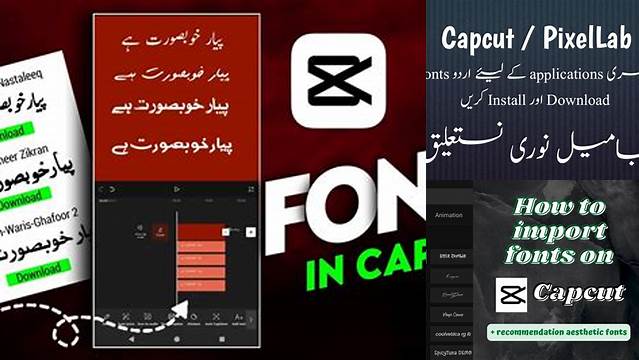
Best Urdu Fonts For CapCut: Free Downloads & Guide
Hey guys! Are you looking to add a touch of Urdu flair to your CapCut videos? You've come to the right place! Using the best Urdu fonts can truly elevate your video projects, making them more engaging and visually appealing to your audience. In this comprehensive guide, we'll dive deep into the world of Urdu fonts specifically tailored for CapCut, exploring why they're important, what to look for, and where to find them. So, buckle up and let's embark on this creative journey together!
Urdu fonts hold immense significance in video editing, especially when catering to an audience that understands and appreciates the language. The right font can convey the tone, emotion, and overall message of your video far more effectively than a generic typeface. Think about it: a playful script font might be perfect for a lighthearted video, while a more traditional and elegant font could enhance a formal or serious project. By choosing the best Urdu fonts, you're not just adding text; you're adding character and personality to your content. This is crucial for capturing and retaining viewer attention, especially in today's fast-paced digital landscape where content creators are constantly vying for eyeballs. Moreover, the clarity and readability of your chosen font are paramount. An aesthetically pleasing font that's difficult to decipher defeats the purpose. We'll explore various font styles and their suitability for different video types, ensuring that your message is not only beautiful but also easily understood. So, let’s delve deeper into the specifics of choosing and using Urdu fonts in CapCut to create videos that truly resonate with your audience.
Let's talk about why Urdu fonts are a game-changer in CapCut. Using the right Urdu font in your videos isn't just about aesthetics; it's about connecting with your audience on a deeper level. When you use a font that resonates with the language and culture, you're speaking directly to your viewers in a way that feels authentic and personal. Imagine watching a video with beautifully crafted Urdu text – it instantly adds a layer of richness and cultural significance that a generic font simply can't replicate. This is especially important for content creators targeting an Urdu-speaking audience, as it shows respect for their language and heritage.
But it's not just about cultural relevance. The best Urdu fonts can also significantly enhance the overall viewing experience. A well-chosen font makes your text more readable and engaging, ensuring that your message is conveyed clearly and effectively. Think about it: a stylish and legible font can capture attention and hold it, while a poorly chosen font can be distracting and even make your video look unprofessional. Different fonts evoke different emotions and moods, so selecting the right one is crucial for setting the tone of your video. A bold and modern font might be perfect for a high-energy vlog, while an elegant and traditional font could be ideal for a documentary or educational video. The key is to match the font to the content and the overall message you're trying to convey. By carefully considering the impact of Urdu fonts, you can transform your CapCut videos from ordinary to extraordinary, creating content that truly connects with your audience and leaves a lasting impression.
So, what makes the best Urdu fonts stand out? It's not just about looking pretty; there are several key features to consider when choosing the right font for your CapCut videos. Readability is paramount. A beautiful font is useless if your audience can't easily read it. Look for fonts with clear letterforms and sufficient spacing between characters. This is especially important for on-screen text, where readability can be affected by factors like screen resolution and viewing distance. Style, of course, matters too. The best Urdu fonts come in a variety of styles, from traditional and calligraphic to modern and minimalist. Think about the tone and message of your video and choose a font that complements it. A formal video might benefit from a classic Naskh or Nastaliq font, while a more casual video could use a contemporary and playful font.
Versatility is another crucial factor. You want a font that looks good in a variety of contexts, whether it's a title, subtitle, or body text. Some fonts are specifically designed for headlines and may not be suitable for smaller text sizes, so it's essential to test how your chosen font looks in different situations. Support for Urdu characters is a given, but make sure the font also includes the necessary ligatures and diacritics for accurate representation of the language. A font that doesn't properly render Urdu script can lead to misinterpretations and a less professional appearance. Finally, consider licensing. Many high-quality Urdu fonts are available for free, but some may require a commercial license if you plan to use them in your videos for business purposes. Always check the licensing terms before using a font to avoid any potential legal issues. By keeping these key features in mind, you can confidently choose the best Urdu fonts for your CapCut projects and create visually stunning and impactful videos.
Alright, let's get to the good stuff! We've compiled a list of some of the top Urdu fonts that work beautifully in CapCut. These fonts have been chosen for their readability, style, and overall versatility, ensuring that you have a wide range of options to suit your video editing needs.
1. Jameel Noori Nastaleeq: This is a classic and widely respected Nastaliq font known for its elegance and readability. It's perfect for formal videos, documentaries, and projects that require a touch of sophistication. The flowing script of Jameel Noori Nastaleeq adds a traditional feel, making it ideal for content that honors Urdu literature and culture. Its intricate design, however, means it’s best used for larger text sizes and headings to maintain clarity. This font is a staple in the Urdu-speaking world and is highly recommended for anyone seeking an authentic and timeless look.
2. Alvi Nastaleeq: Another fantastic Nastaleeq option, Alvi Nastaleeq, offers a slightly more modern take on the traditional script. It's still highly readable but has a cleaner, more contemporary feel. This font is versatile enough to be used in a variety of video styles, from educational content to vlogs. Alvi Nastaleeq strikes a balance between classic and modern, making it a reliable choice for creators who want a font that is both elegant and accessible. Its well-defined characters ensure readability even at smaller sizes, making it suitable for subtitles and body text as well as headlines.
3. Nafees Nastaleeq: Nafees Nastaleeq is celebrated for its crispness and clarity. It's an excellent choice for videos where readability is paramount, such as tutorials or explainer videos. The clean lines and balanced letterforms make it easy on the eyes, ensuring that your audience can focus on the content rather than struggling to decipher the text. Nafees Nastaleeq is also a good option for projects that require a modern touch while maintaining the traditional Urdu script. Its simplicity makes it versatile and suitable for a wide range of applications within CapCut.
4. Urdu Naskh Asia Type: For those seeking a Naskh-style font, Urdu Naskh Asia Type is a solid choice. Naskh fonts are known for their simplicity and clarity, making them ideal for body text and situations where readability is key. This font is particularly well-suited for educational videos, news reports, and any content that requires a straightforward and professional look. Urdu Naskh Asia Type provides a clean and legible appearance, ensuring that your message is communicated effectively without any distractions. Its straightforward design makes it a practical choice for creators who prioritize clarity and ease of reading.
5. Lateef: If you're looking for a more contemporary and casual Urdu font, Lateef is a great option. It has a friendly and approachable feel, making it perfect for vlogs, social media content, and videos aimed at a younger audience. Lateef's rounded letterforms and slightly playful design add a touch of personality to your videos, helping them stand out from the crowd. This font works particularly well in informal settings, lending a relaxed and engaging vibe to your content. Its modern aesthetic makes it a good choice for creators who want to blend traditional script with contemporary design elements.
These are just a few of the many amazing Urdu fonts available. We encourage you to explore and experiment to find the perfect font that matches your style and the message you want to convey.
Now that you know some of the best Urdu fonts, let's talk about where you can download them. There are several excellent resources available online, both free and paid, where you can find a wide variety of Urdu fonts to suit your needs.
1. Google Fonts: Google Fonts is a fantastic resource for free, open-source fonts, and it includes a growing selection of Urdu fonts. The fonts available on Google Fonts are generally high-quality and can be used for both personal and commercial projects. The ease of access and the fact that they are free make Google Fonts a great starting point for anyone looking to add Urdu typography to their videos. The fonts are also optimized for web use, which means they look great on screens and are easy to integrate into various design tools, including CapCut.
2. UrduWeb: UrduWeb is a dedicated website that offers a range of Urdu fonts, many of which are free to download. It's a great place to find fonts specifically designed for the Urdu language, ensuring that you have access to the necessary characters and ligatures. UrduWeb is a valuable resource for creators who need fonts tailored to the nuances of Urdu script. The site often features fonts that are not available elsewhere, providing a unique collection for your video projects.
3. Font Library: Font Library is another excellent online resource that aggregates free fonts from various sources. You can find a selection of Urdu fonts here, along with fonts in many other languages. The advantage of Font Library is its wide range of options and the ability to filter by different styles and languages. This makes it easier to find a font that matches your specific creative vision. The platform’s user-friendly interface allows you to preview fonts and download them quickly, making it a convenient option for busy video editors.
4. Creative Market: For those willing to invest in premium fonts, Creative Market is a fantastic option. It offers a vast selection of high-quality fonts, including many beautiful Urdu typefaces. Paid fonts often come with additional features and support, making them a worthwhile investment for professional projects. Creative Market’s fonts are designed by talented typographers and are often more refined and unique than free options. The licensing is also typically straightforward, making it a reliable choice for commercial use.
5. MyFonts: MyFonts is another popular marketplace for premium fonts. It has a wide variety of Urdu fonts available, ranging from traditional to modern styles. MyFonts is known for its extensive selection and high standards of quality, ensuring that you find a font that meets your professional needs. The site’s advanced search features allow you to filter fonts by various criteria, including language, style, and price, making it easier to narrow down your options. MyFonts also provides detailed font previews, allowing you to see how the font looks in different contexts before you make a purchase.
When downloading fonts, always make sure to check the licensing terms to ensure that you are using them legally. Most free fonts have licenses that allow for personal and commercial use, but it's always best to double-check. By using these resources, you'll be well-equipped to find the best Urdu fonts for your CapCut videos.
Okay, you've downloaded your favorite Urdu fonts – awesome! Now, let's get them into CapCut so you can start using them in your videos. The process is pretty straightforward, but it can vary slightly depending on whether you're using CapCut on your mobile device or on your computer.
On Mobile (Android & iOS):
- Locate the Downloaded Font: First, find the folder where your downloaded font files are stored. These files usually come in a
.ttfor.otfformat. This is often in your device's "Downloads" folder or a specific folder you've designated for downloads. - Copy or Move the Font File: Once you've found the font file, you'll need to copy or move it to the CapCut fonts folder. This folder is typically located in your device's internal storage under
Android > data > com.lemon.lvoverseas > files > CapCut > user_data > custom_fonts. Note that this path might slightly differ based on your Android version or device, but the general structure remains the same. - If the Folder Doesn't Exist: If you don't see the
custom_fontsfolder, don't worry! You can simply create it. Just navigate to theuser_datafolder and create a new folder namedcustom_fonts. This will allow CapCut to recognize the new fonts you add. - Open CapCut and Add Text: Now, open CapCut and start a new project or edit an existing one. When you add text to your video, you'll see a "Font" option. Tap on it to open the font selection menu.
- Find Your Font: Scroll through the font list, and you should see your newly added Urdu font listed under the "Custom" or “My Fonts” section. If it doesn't appear immediately, try restarting the CapCut app. This often helps the app refresh its font list and recognize the new additions.
- Use Your Font: Once you find your font, tap on it to apply it to your text. You can then adjust the size, color, and other properties of the text to match your video's style.
On Desktop (PC & Mac):
- Locate the Downloaded Font: As with mobile, the first step is to find the downloaded font files (
.ttfor.otf). These are usually in your computer’s “Downloads” folder or a specific folder where you save downloads. - Install the Font on Your System: To use the font in CapCut (or any other desktop application), you need to install it on your operating system. On Windows, you can right-click the font file and select “Install.” On macOS, double-click the font file, and it will open in Font Book, where you can click “Install Font” at the bottom of the window. This step adds the font to your system’s font library, making it available to all applications.
- Open CapCut and Add Text: Launch CapCut on your desktop and open the project you're working on. Add a text layer to your video by selecting the text tool.
- Select Your Font: In the text editing panel, you’ll find a font selection dropdown menu. Click on it, and you should see your newly installed Urdu font listed among the other fonts. If it doesn’t appear immediately, try restarting CapCut. This helps the app refresh its font list and recognize the new font.
- Use Your Font: Once you’ve found your font, select it to apply it to your text. You can then adjust the font size, color, and other properties to fit your video’s design.
By following these steps, you can easily add custom Urdu fonts to CapCut and enhance your videos with beautiful typography. Remember to experiment with different fonts to find the perfect match for your content!
Adding Urdu fonts to CapCut is just the first step. To truly make your videos shine, you need to use these fonts effectively. Here are some tips to help you create stunning visuals with Urdu typography.
1. Readability is Key: This can't be stressed enough! No matter how beautiful a font is, if your audience can't read it easily, it's not doing its job. Choose fonts with clear letterforms and avoid overly decorative or complex styles, especially for smaller text sizes. Ensure that the font is legible on different screen sizes and resolutions. Consider the background of your video and select a font color that provides enough contrast for easy reading. For instance, white text on a dark background or vice versa usually works well. Also, be mindful of the spacing between letters and lines. Adjust the kerning and leading in CapCut to optimize readability, especially if you are using long sentences or paragraphs. Test your font choices on different devices to ensure that they remain readable across various platforms.
2. Match the Font to Your Video's Tone: The font you choose should complement the overall mood and message of your video. A playful, handwritten font might be perfect for a casual vlog, but it wouldn't be suitable for a formal documentary. Conversely, an elegant, traditional font could add sophistication to a serious project but might feel out of place in a lighthearted video. Consider the emotional tone you want to convey and select a font that aligns with it. For example, if your video is about a historical event, a classic Nastaliq font might be appropriate, while a modern and bold font could work well for a tech-related video. Pay attention to the font’s personality and how it resonates with your video’s narrative.
3. Use Font Hierarchy: Just like in any design project, using a clear font hierarchy can make your videos more visually appealing and easier to follow. Use different fonts for headings, subheadings, and body text to create a visual structure that guides the viewer's eye. For example, you might use a bold and eye-catching font for the title and a more readable font for the main content. Consistent font usage throughout your video helps to maintain a professional and cohesive look. Limit the number of fonts you use in a single project to avoid visual clutter. Typically, two to three fonts are sufficient to create a balanced and engaging design. Experiment with font sizes, weights, and styles within the same font family to create visual interest without introducing too many different fonts.
4. Consider Cultural Context: When using Urdu fonts, it's essential to consider the cultural context. Different fonts have different cultural associations, and choosing the right font can help you connect with your audience on a deeper level. Traditional Urdu fonts, like Nastaliq, are often associated with literature, poetry, and historical texts. Using these fonts can evoke a sense of tradition and heritage. Modern Urdu fonts, on the other hand, can convey a more contemporary and progressive feel. Think about your target audience and the message you want to send. If you’re creating content for a specific cultural group, ensure that your font choice resonates with their cultural values and preferences. This shows respect for the audience and enhances the overall impact of your video.
5. Test and Iterate: Don't be afraid to experiment with different fonts and styles. The best way to find what works is to try things out and see what looks good. Test your font choices on different devices and screen sizes to ensure that they look consistent across platforms. Get feedback from others and be willing to make adjustments based on their input. Video editing is an iterative process, and font selection is no exception. Try different combinations of fonts, colors, and sizes to find the perfect balance for your video. Pay attention to how the fonts look in motion and adjust their timing and placement to create a visually dynamic effect. By continuously testing and refining your font choices, you’ll create videos that are both beautiful and effective.
By keeping these tips in mind, you can make the most of Urdu fonts in CapCut and create videos that truly stand out!
So there you have it, guys! A comprehensive guide to using the best Urdu fonts in CapCut. We've covered why Urdu fonts matter, what to look for in a good font, where to download them, how to add them to CapCut, and tips for using them effectively. By following these guidelines, you'll be well on your way to creating stunning videos that resonate with your audience. Remember, the right font can make all the difference, so take the time to explore your options and find the perfect match for your creative vision. Happy editing!